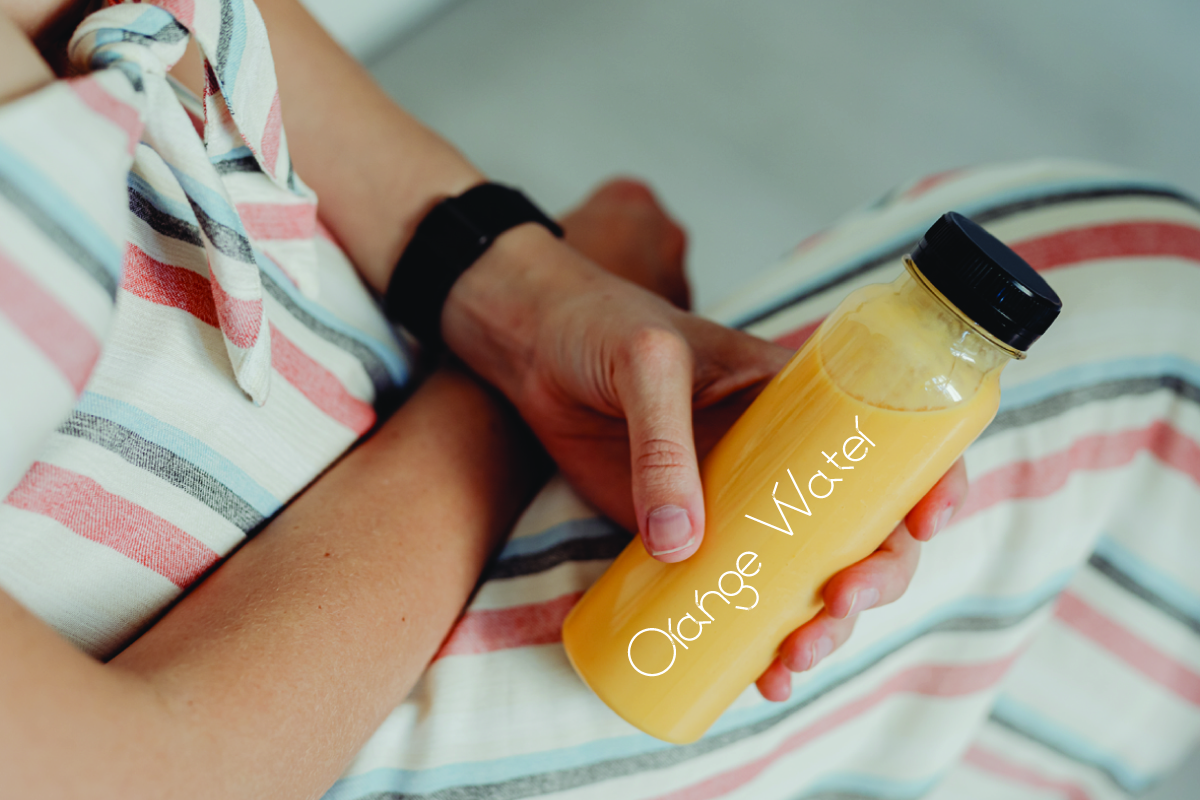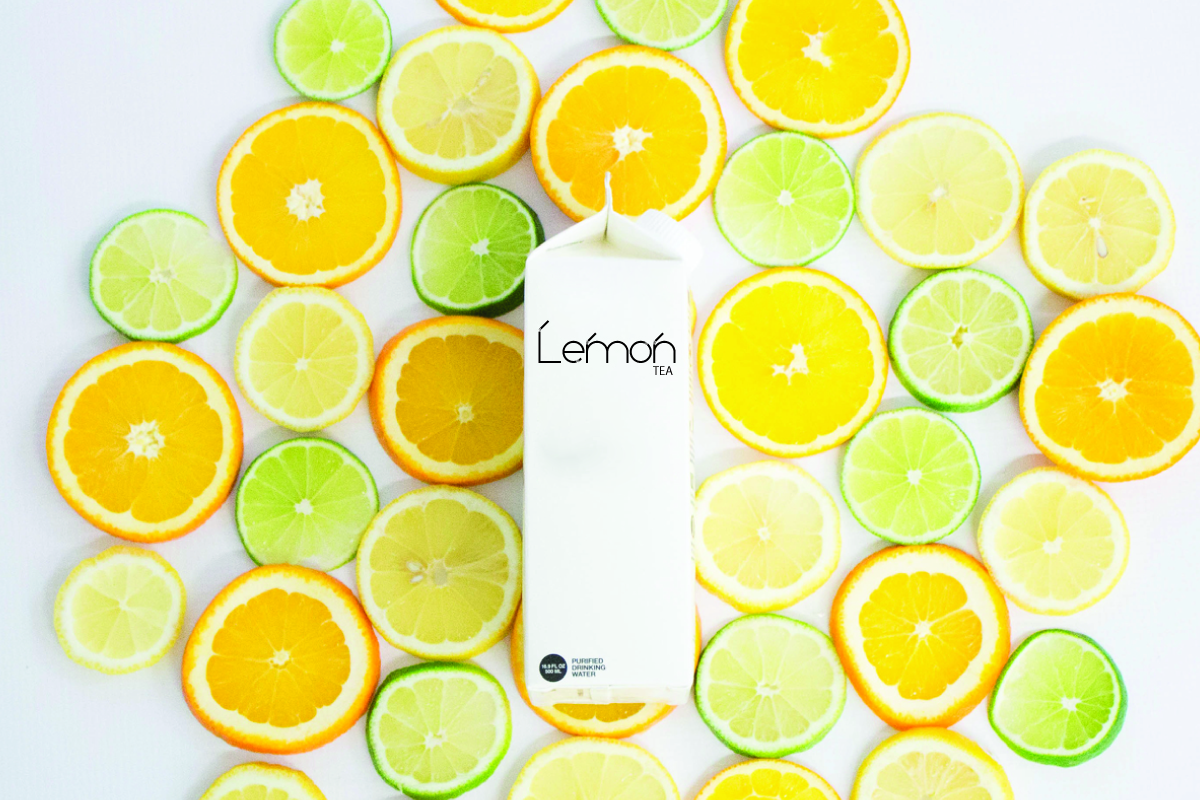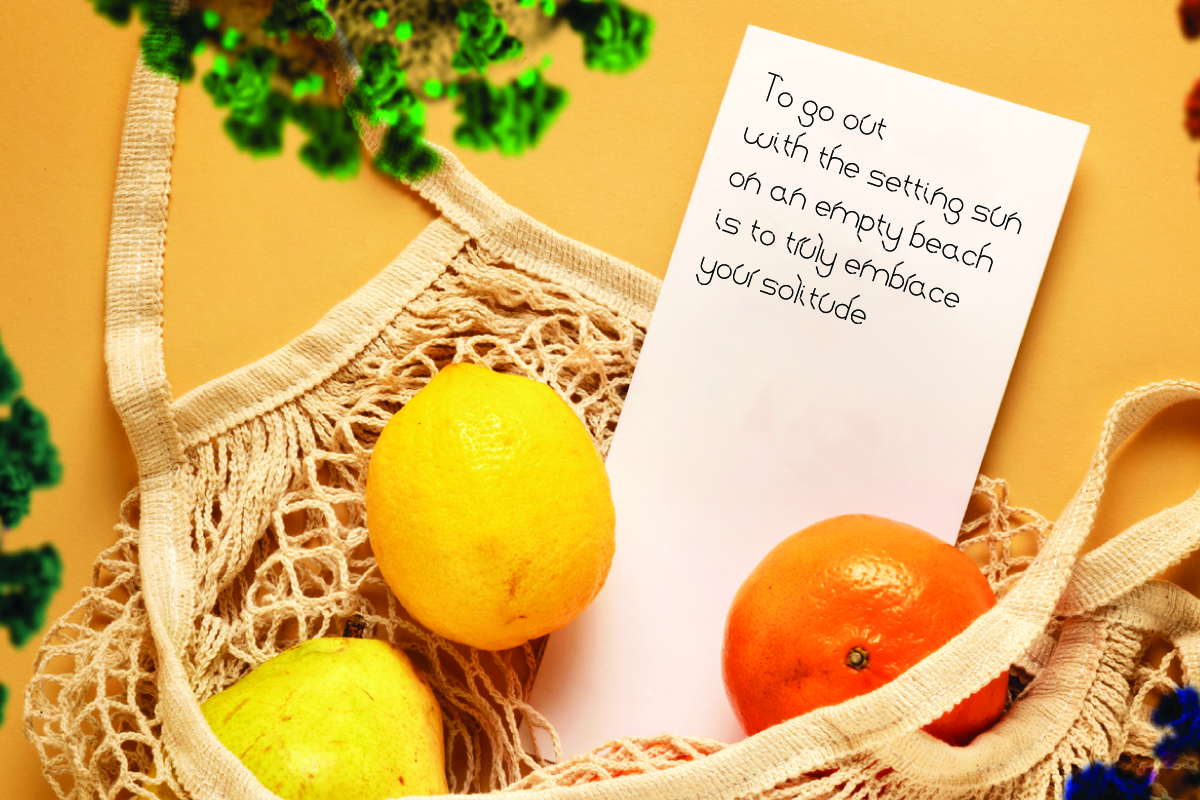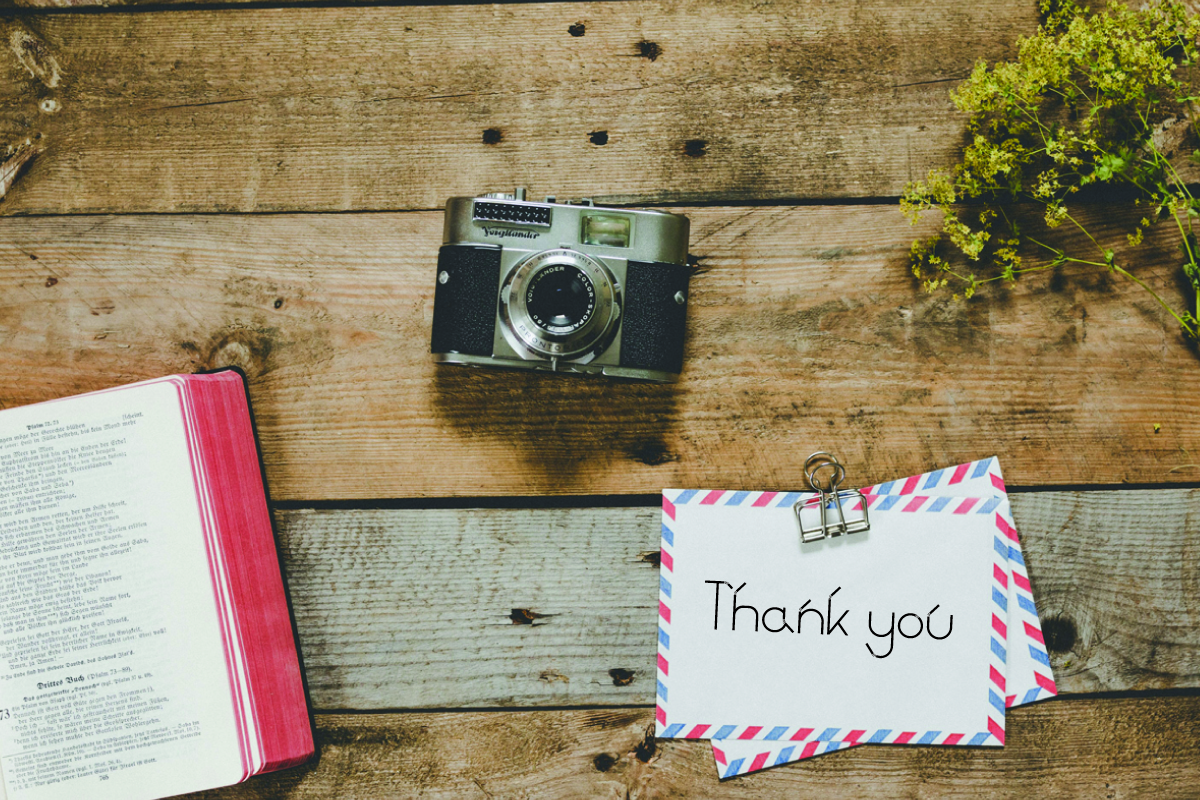
Lemon Straw Display Font
This font was handcrafted With simple characters, it will be stunning for any your special projects including : promotion, events, branding, advertising, magazine, apps, signage, invitation, stationery, social media posts, product packaging, product designs, label, comic, watermark or and any projects that need calligraphy handwriting style.
Lemon Straw display Font includes full set of cool uppercase and lowercase letters, numerals, a large range of punctuation and ligatures. All letters has hand-lettered style to make it unique yet cool looking design.